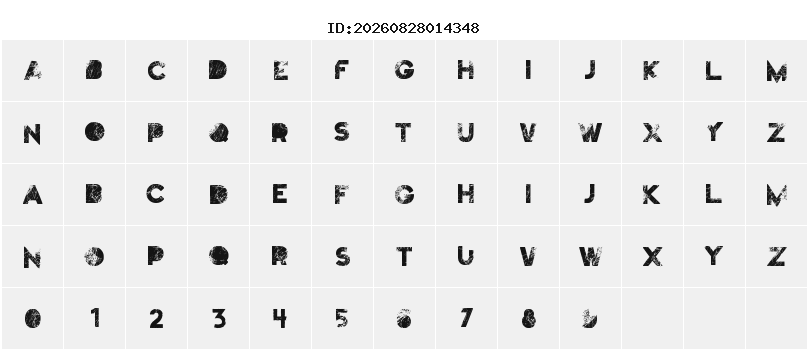
Truskey Preview
• Font Name: Truskey
• Full Font Name: Truskey
• Version: Version 1.00 July 7, 2011, initial release by Dirt2.com - SickCapital
• Description: by Dirt2.com - SickCapital
About Truskey.ttf
Truskey.ttf is a modern, elegant sans-serif font designed for ultimate readability and visual harmony. Perfect for branding, headlines, web design, and print materials.